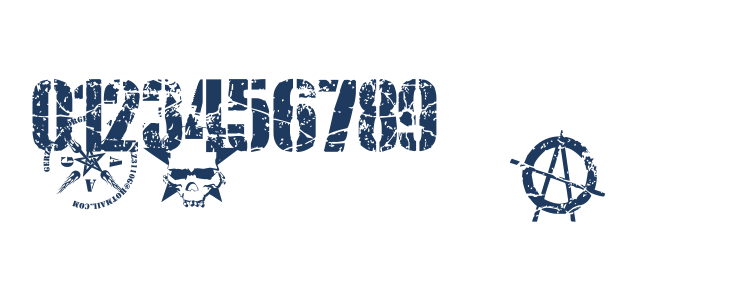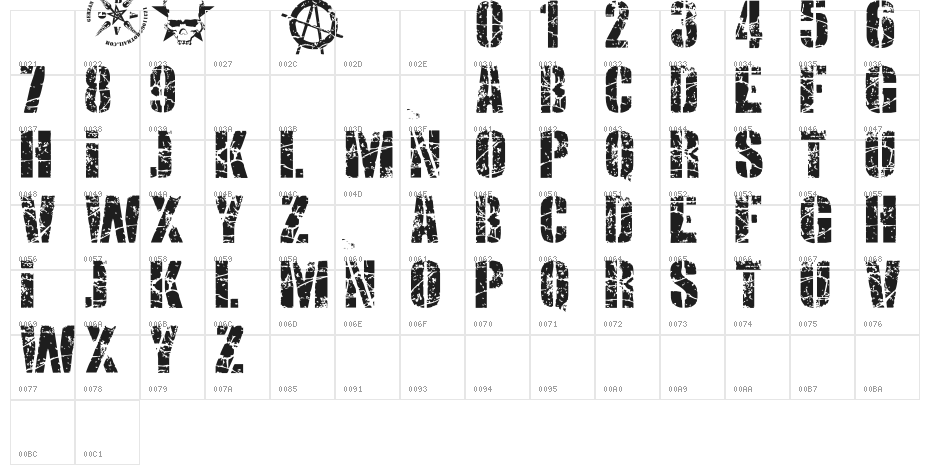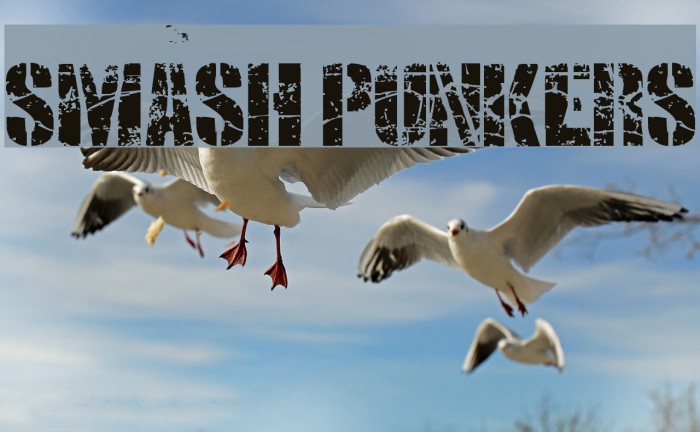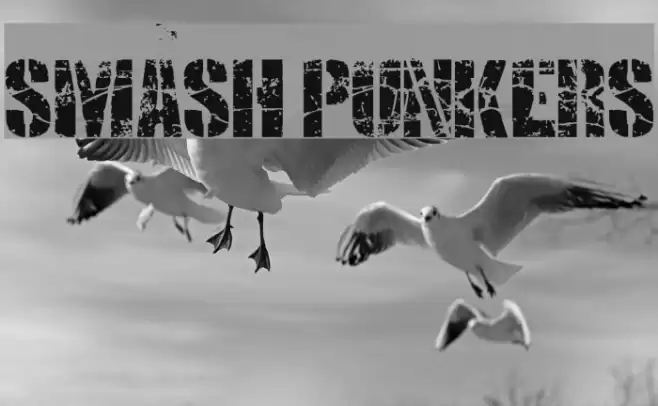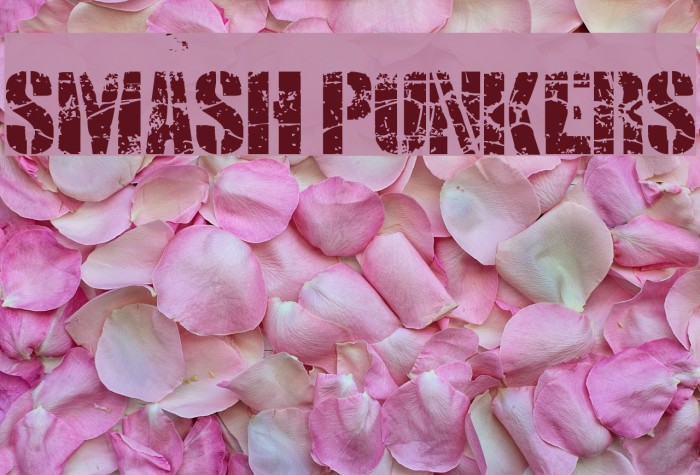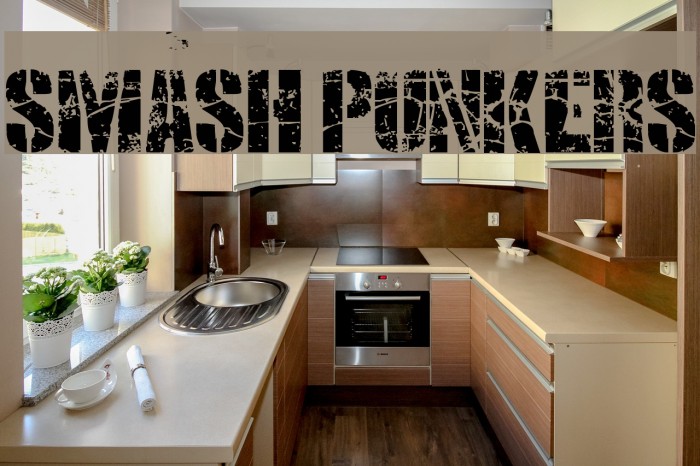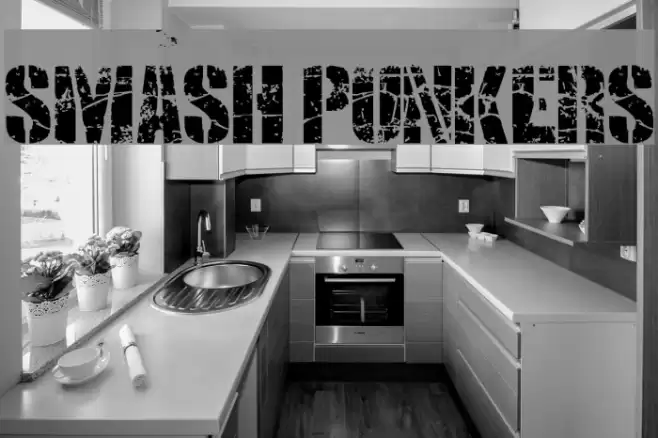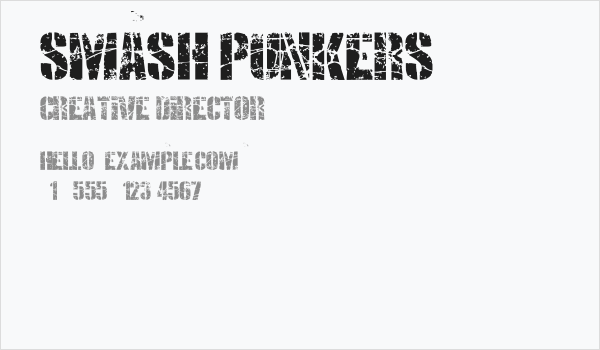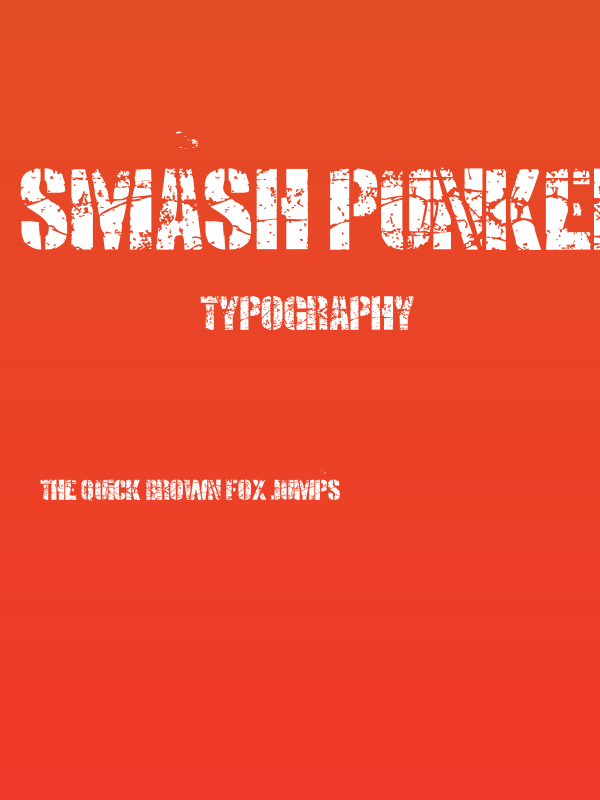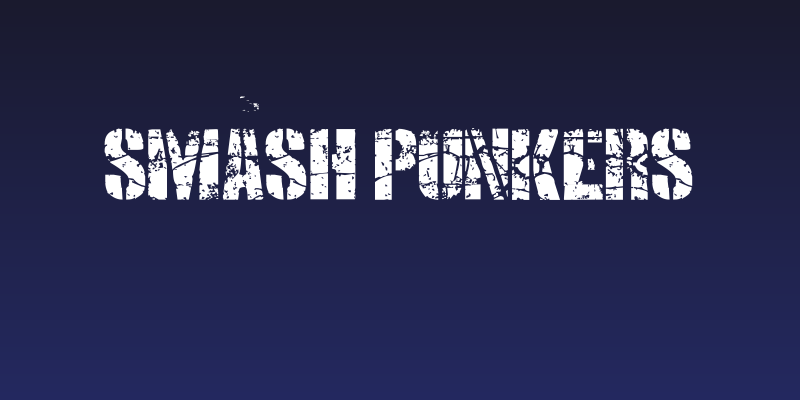
SMASH PUNKERS Font
SMASH PUNKERS Description
This font exudes a rugged, distressed aesthetic, reminiscent of urban street art and punk rock culture. The characters are bold and heavily textured, giving the impression of being weathered or eroded. This style is characterized by its rough edges and irregular patterns, which create a sense of movement and chaos. The uppercase and lowercase letters maintain a consistent height, while the numbers and special characters follow the same distressed theme. The font's unique appearance makes it ideal for projects that require a rebellious or edgy vibe.
| Overall Style | Punk, Urban, Distressed |
| Proposed Projects | Ideal for music album covers, event posters, streetwear branding, and any project seeking a rebellious or edgy look. |